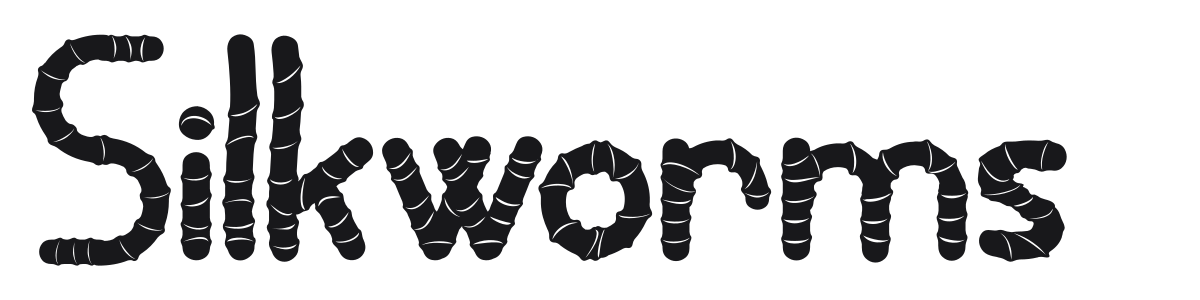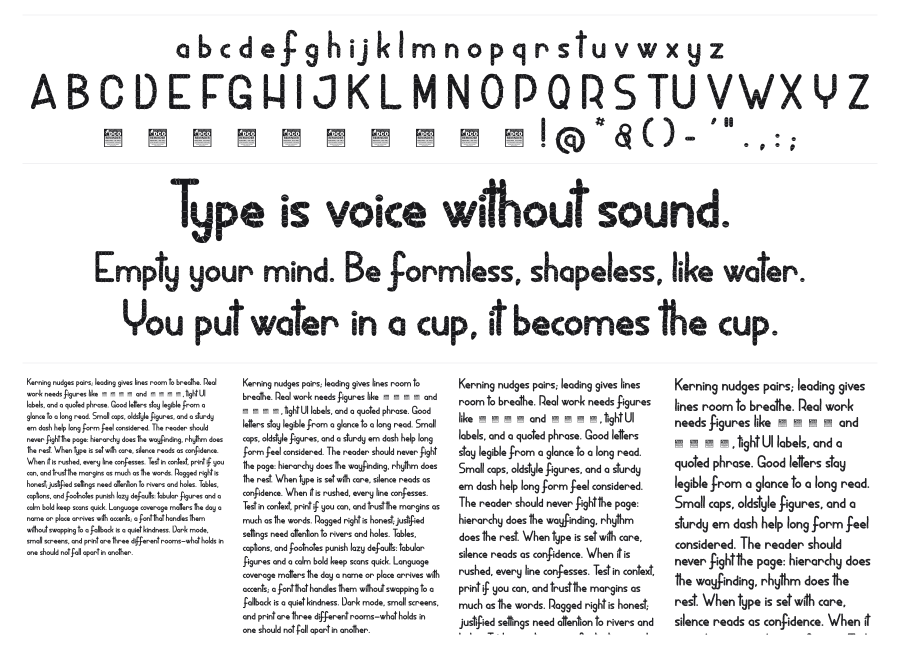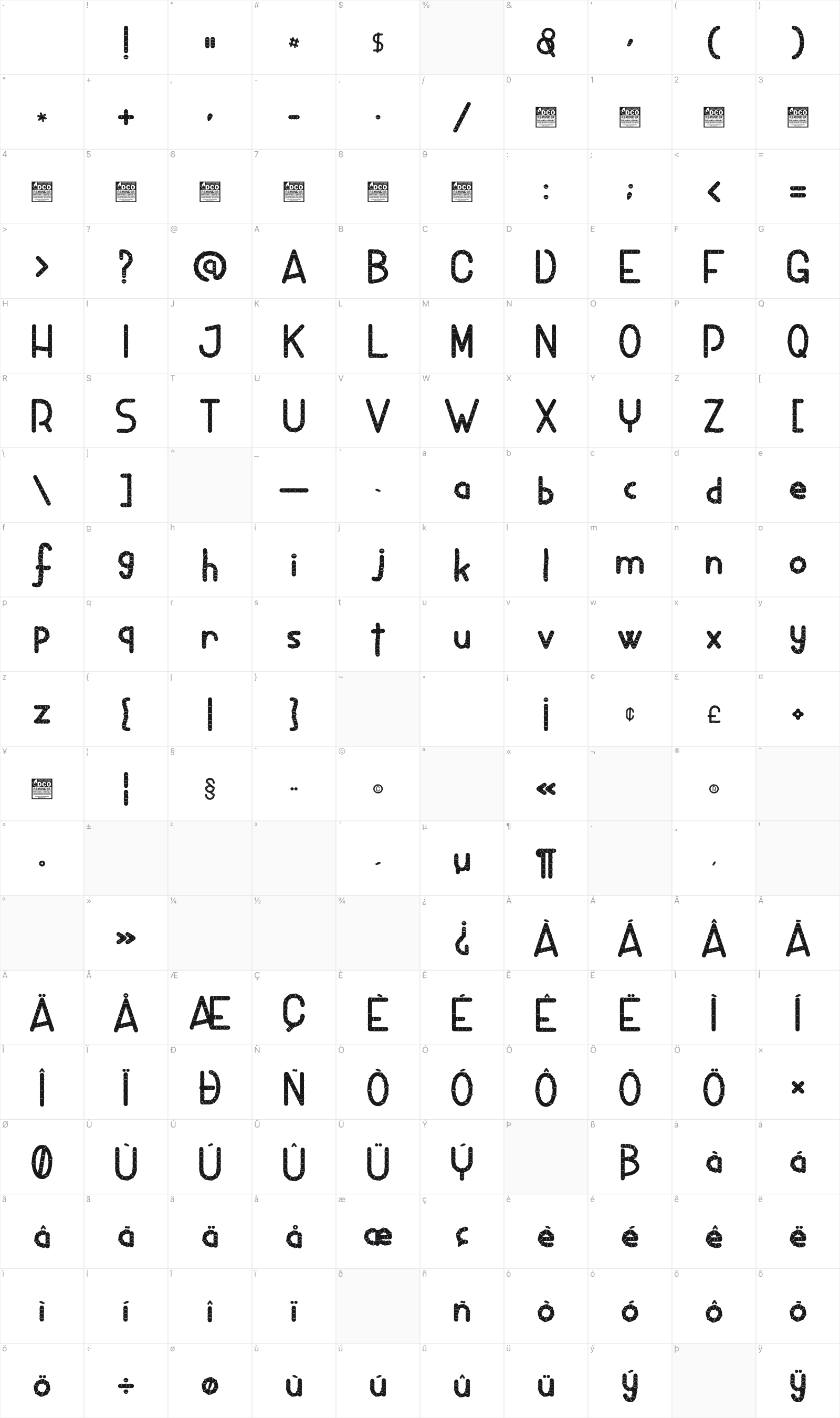
Silkworms
Silkworms is a novelty display font where every stroke is shaped like a segmented worm or caterpillar body, built from repeating rounded bumps. The effect is bold and immediately readable at large sizes, while the surface texture adds a tactile, organic charm. It works well for children's media, food packaging, or anything that needs a dose of creature-feature personality.